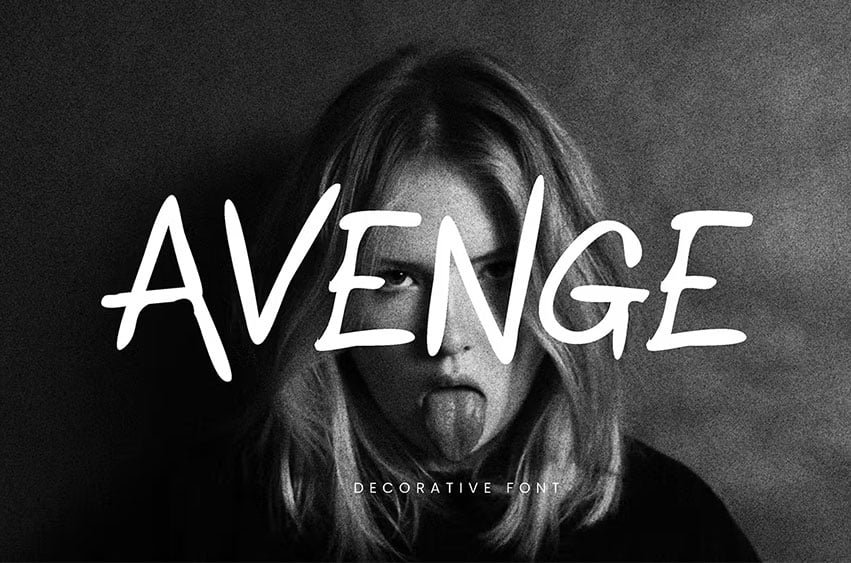
Avenge Decorative Font
Avenge Decorative Font is a simple decorative font. So perfect for you who needs a typeface for logo designs, magazine, social media, brochure, and many more.